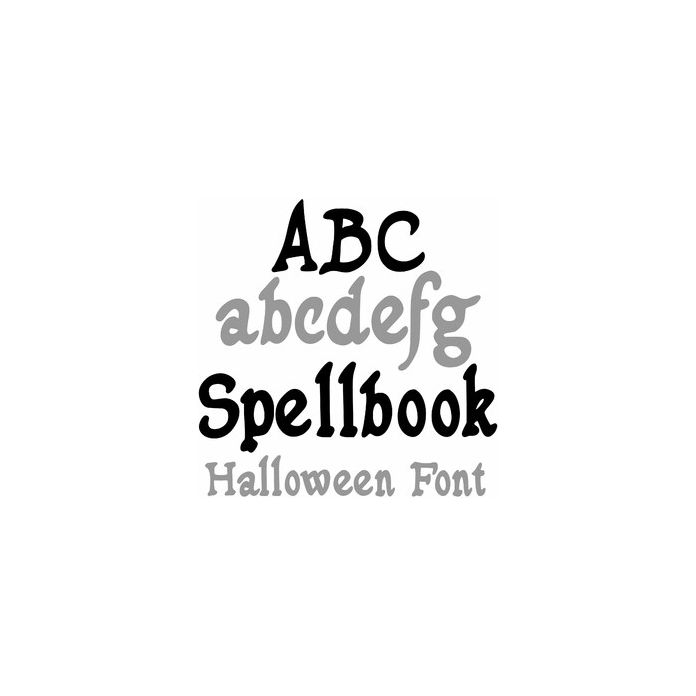
Spellbook is a vintage style font, fun for Halloween crafts, signs, invitations, kitchen labels, personalization, and decorative projects. Includes alphabet, numbers, and punctuation.